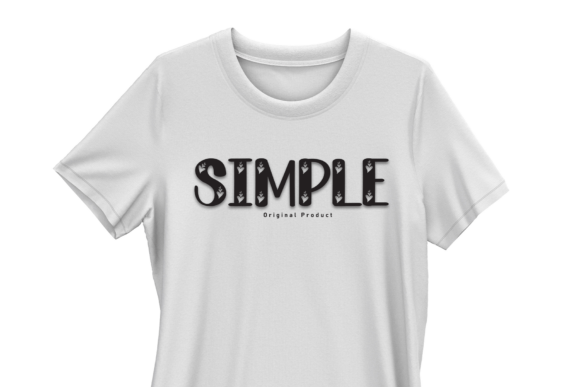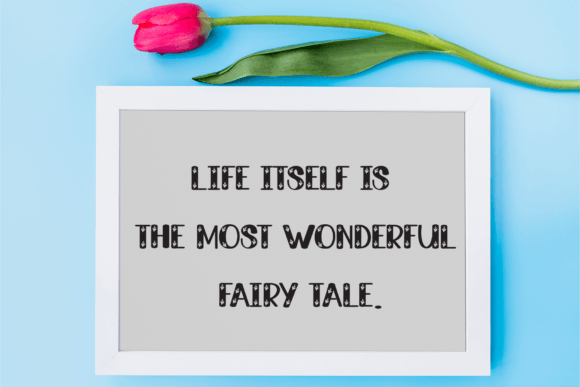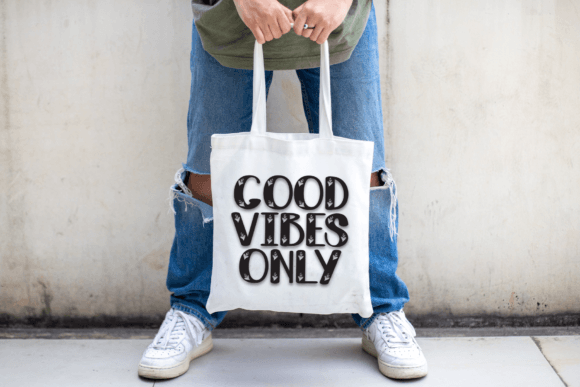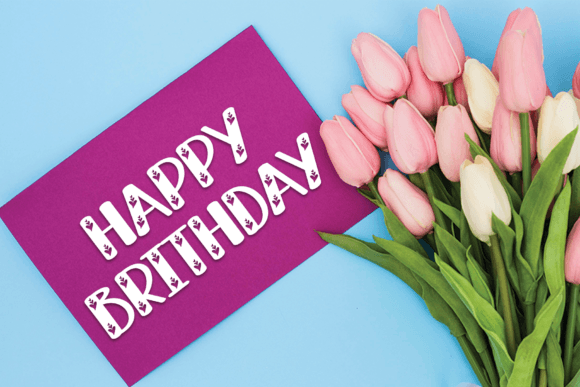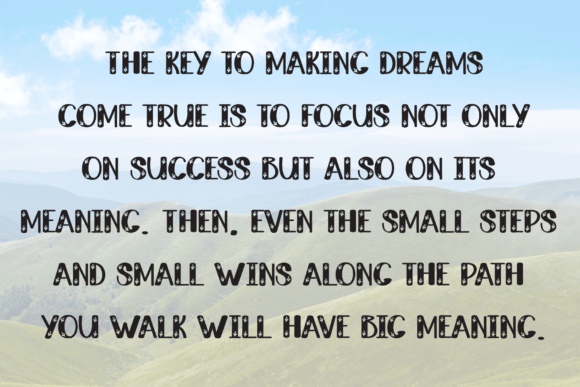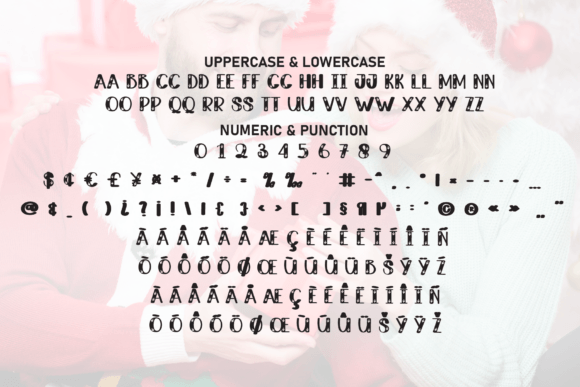
Introduction to Santa Loving Font
As I sat at my desk, staring at a blank canvas, I knew I needed something special to bring my creative project to life. I was working on a holiday card design, and I wanted it to feel like a warm hug to the recipient. That’s when I stumbled upon the perfect solution – the Santa Loving Font. This charming handwritten display font is the epitome of sweetness and friendliness, and it’s about to become your new best friend in the world of design.
With its cute and playful character, the Santa Loving Font is the perfect addition to any design seeking a dash of whimsy. Whether you’re working on a wedding invitation, a card, or a social media graphic, this font is sure to bring a smile to your face and a touch of magic to your design. And the best part? It’s available for free download, making it an invaluable resource for designers of all levels.
Key Features of Santa Loving Font
- Perfect for use in holiday-themed designs, gift wrapping, and Christmas cards due to its festive and joyful design.
- Unique characteristics: bold, playful, and whimsical typography that captures the spirit of the holiday season.
Honest Review: Santa Loving Font
I recently had the chance to work with the Santa Loving Font, and I’m excited to share my thoughts on this unique design resource. One of the things that immediately caught my eye was the high-quality aesthetic of the font. ✨ The clean lines and festive feel make it perfect for any creative project that needs a touch of holiday magic.
One of the best features of this font is its transparent background, which makes it easy to layer over other design elements. This is a huge plus for designers who want to create complex compositions without worrying about pesky backgrounds getting in the way.
- High-quality aesthetic ✨
- Perfect for holiday-themed designs
- May not be suitable for non-holiday designs
- Only a few styles available
Overall, I’m impressed with the Santa Loving Font, but I do wish it was more versatile. If you’re looking for a unique font to add some holiday cheer to your design, this might be the perfect choice. However, if you’re looking for a more general-purpose font, you might want to look elsewhere.
Santa Loving Font
Tips for Getting the Most Out of Santa Loving Font
For the best results, use the Santa Loving Font in conjunction with other design elements that fit your project’s theme.
Experiment with different font sizes and colors to add visual interest to your design.
Common Use Cases for Santa Loving Font
The Santa Loving Font is perfect for:
Designing holiday-themed projects, such as Christmas cards and gift tags.
Creating festive social media posts and graphics.
Adding a touch of whimsy to your branding and marketing materials.